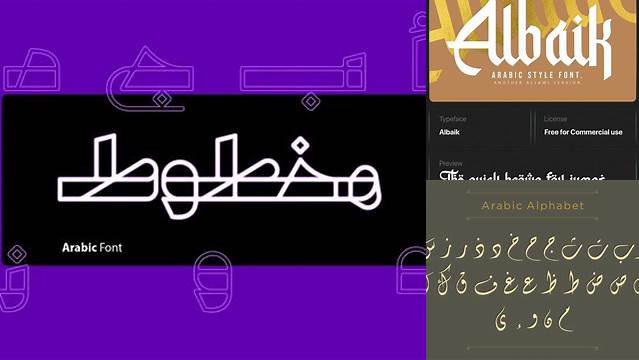
Copy & Paste Arabic Fonts: Free Styles & Designs
Hey guys! Ready to spice up your designs with some awesome Arabic fonts? You're in the right place! This article is all about free Arabic font style copy paste – a super easy way to add a touch of elegance, culture, and flair to your projects. Whether you're working on a website, a social media post, or a document, finding the perfect font can make a huge difference. We'll dive into where to find these fonts, how to use them, and some cool tips and tricks to make your text pop. So, grab a coffee (or tea, if you're feeling traditional!), and let's get started on this font-tastic adventure! We'll explore a wide range of Arabic font styles, from the classic and traditional to the modern and stylish, all ready for you to copy and paste. Get ready to transform your text and make your content stand out with the beauty of Arabic calligraphy and typography. Let's get started and unlock the world of free Arabic font style copy paste!
H2: Discovering the Best Free Arabic Fonts for Copy & Paste
H2: Choosing the Right Arabic Font Style for Your Project
Choosing the right font is like choosing the right outfit – it can make or break your project! When it comes to choosing the right Arabic font style for your project, consider the message you want to convey and the overall aesthetic you're aiming for. Arabic fonts are incredibly diverse, each with its own personality. Let's break down some popular styles. Naskh is a classic and widely used style. It's known for its clarity and legibility, making it perfect for body text, documents, and books. If you want a clean and professional look, Naskh is a great choice. Thuluth is a more ornate and elegant style, often used for headlines, titles, and decorative purposes. It's characterized by its flowing curves and elaborate flourishes. If you want to add a touch of sophistication, Thuluth is an excellent option. Ruq'ah is a more informal and handwritten-style font. It's commonly used in everyday writing and is suitable for casual designs. If you want to give your project a personal or friendly feel, Ruq'ah can be a good fit. Diwani is known for its intricate and decorative style. It's often used for calligraphy and formal occasions, such as invitations. Diwani is a good choice when you want to make a bold statement. Kufi is a geometric and angular style, often used for headlines, logos, and architectural designs. It's a bold and modern style that conveys a sense of strength and stability. Think about the target audience for your project. What kind of fonts do they typically respond to? Consider the platform where your design will be used. Different platforms may have different font preferences. Test out a few different fonts and see how they look in your project. The best way to find the perfect font is to experiment. If you are designing a logo, consider a unique font that stands out and represents your brand's identity. You might consider a combination of font styles to emphasize different aspects of your design. Experiment with different font sizes, colors, and styles to create a visually appealing design. Selecting the appropriate font style is crucial for effective communication and achieving your project goals. Choose the right style to suit your specific needs, which is key to successful choosing the right Arabic font style for your project.
H3: Exploring Different Arabic Font Styles and Their Uses
Let's dive deeper into some specific Arabic font styles and their best uses. The beauty of Arabic calligraphy is its versatility. We've touched on a few styles, but let's explore further. Naskh is a cornerstone of Arabic typography. Its clear and straightforward design makes it ideal for lengthy texts, books, and official documents. Its legibility ensures that readers can easily follow the text without straining their eyes. This font style is highly adaptable and can be used in various contexts, from educational materials to corporate reports. Thuluth, on the other hand, is all about elegance and artistry. It's perfect for headlines, titles, and decorative elements. The flowing curves and intricate details of Thuluth add a touch of sophistication and grandeur to your designs. It's often used in religious texts, calligraphic art, and formal announcements. Ruq'ah is a versatile font style that suits various informal settings, such as social media posts, greeting cards, and personal notes. This font style exudes a relaxed and approachable vibe, making your content feel friendly and accessible. It's perfect for personal projects that require a touch of warmth and authenticity. Diwani is a highly ornate and artistic font often used for formal invitations, certificates, and artistic expressions. Its intricate letterforms and decorative flourishes add an air of prestige and sophistication to any design. Its visual impact makes it a perfect choice for celebrating important occasions. Kufi is known for its strong, geometric appearance, making it ideal for logos, headings, and architectural designs. Its bold lines and structured forms convey strength and authority. It's commonly used in branding and marketing materials that aim to make a striking visual statement. Different styles offer different nuances and benefits. Selecting the best style from exploring different Arabic font styles and their uses will help you produce a professional-looking output.
H2: Designing with Arabic Fonts: Tips and Best Practices
Alright, let's talk about putting these fonts to work! Once you've got your free Arabic font style copy paste fonts, you'll want to make sure you're using them effectively. Here are some tips and best practices for designing with Arabic fonts. First, consider the readability. Make sure your chosen font is legible, especially if it's for body text. Avoid fonts that are too elaborate or stylized if clarity is a priority. Ensure the font size is appropriate for the context. Larger fonts are generally needed for headlines, while smaller fonts can be used for body text. Experiment with different font sizes to find the perfect balance between visibility and visual appeal. Pay attention to the spacing between letters, words, and lines. Proper spacing can significantly improve readability. Adjust the spacing to ensure the text is easy to read and doesn't appear crowded. Consider the alignment of your text. Arabic text is typically aligned to the right, but you can experiment with different alignments to suit your design. Left-align your content, if necessary. Use color wisely. Choose colors that complement the font and the overall design. Ensure there's enough contrast between the text and the background to make it easily readable. Avoid using colors that clash or make the text difficult to see. Think about how the font interacts with the rest of your design. Make sure it complements the images, colors, and layout of your project. Use the font to enhance the overall visual experience and create a cohesive design. Use different font weights and styles (bold, italic, etc.) to emphasize important information. Use bold text for headlines or key phrases to draw attention, and italics for emphasis. Avoid overusing different font styles, as this can make your design appear cluttered. Consider using a combination of Arabic and Latin fonts to create a visually appealing design. Use a Latin font for headings or titles and an Arabic font for the main text, or vice versa. Choose fonts that have a consistent style, creating a harmonious design. Experiment with different font combinations to see what works best. With these pointers, designing with Arabic fonts will be a breeze.
H3: Creating Visually Appealing Designs with Arabic Fonts
Let's talk about making your designs shine! When it comes to creating visually appealing designs with Arabic fonts, it's all about balancing aesthetics and functionality. Start by creating a clear visual hierarchy. Use different font sizes, weights, and styles to distinguish headings, subheadings, and body text. This helps the reader easily scan and understand the information. Use negative space (the space around your text and other design elements) effectively. Don't overcrowd your design. Give your text some breathing room to prevent it from feeling cramped and overwhelming. The strategic use of negative space can enhance readability and visual appeal. Pay attention to color and contrast. Choose colors that complement your Arabic font and the overall design. Ensure there is enough contrast between the text and the background. If you are trying to make your design more appealing. Experiment with different color palettes to create a unique and visually appealing design. Ensure your design is consistent. Use a consistent font size and style throughout the design to create a cohesive and professional look. Avoid using too many different fonts, as this can make your design look messy. You may also add visual elements to enhance your designs, such as illustrations, icons, or patterns, that complement the Arabic script. Make sure the images you use are high-quality and relevant to the text. If you're designing for a website or other digital platform, optimize your design for different screen sizes. Your design should look good on both desktop and mobile devices. Test your design on different devices to ensure it displays correctly. Consider your design's overall theme and message. Does the font match the tone of the content? If you are trying to build something, the proper style will make all the difference. If you want a more stylish output. Consider adding some images, the visual will help you. Remember, the key to success with creating visually appealing designs with Arabic fonts is a blend of creativity, attention to detail, and technical know-how.
H2: Conclusion: Unleashing the Power of Free Arabic Fonts
So, there you have it! You've got the tools, the knowledge, and the inspiration to start using free Arabic font style copy paste fonts in your projects. Remember, the key is to explore, experiment, and have fun! Don't be afraid to try different fonts, styles, and designs. The world of Arabic typography is rich and diverse, and there's something for everyone. Whether you're a seasoned designer or a complete beginner, you can create stunning visuals with the beauty and elegance of Arabic script. Embrace the art of Arabic calligraphy and typography, and let your creativity soar. With the right fonts and a little practice, you'll be amazed at what you can achieve. So, go forth and create! And remember, the best designs often come from a place of passion and curiosity. Now go out there and create some stunning designs!